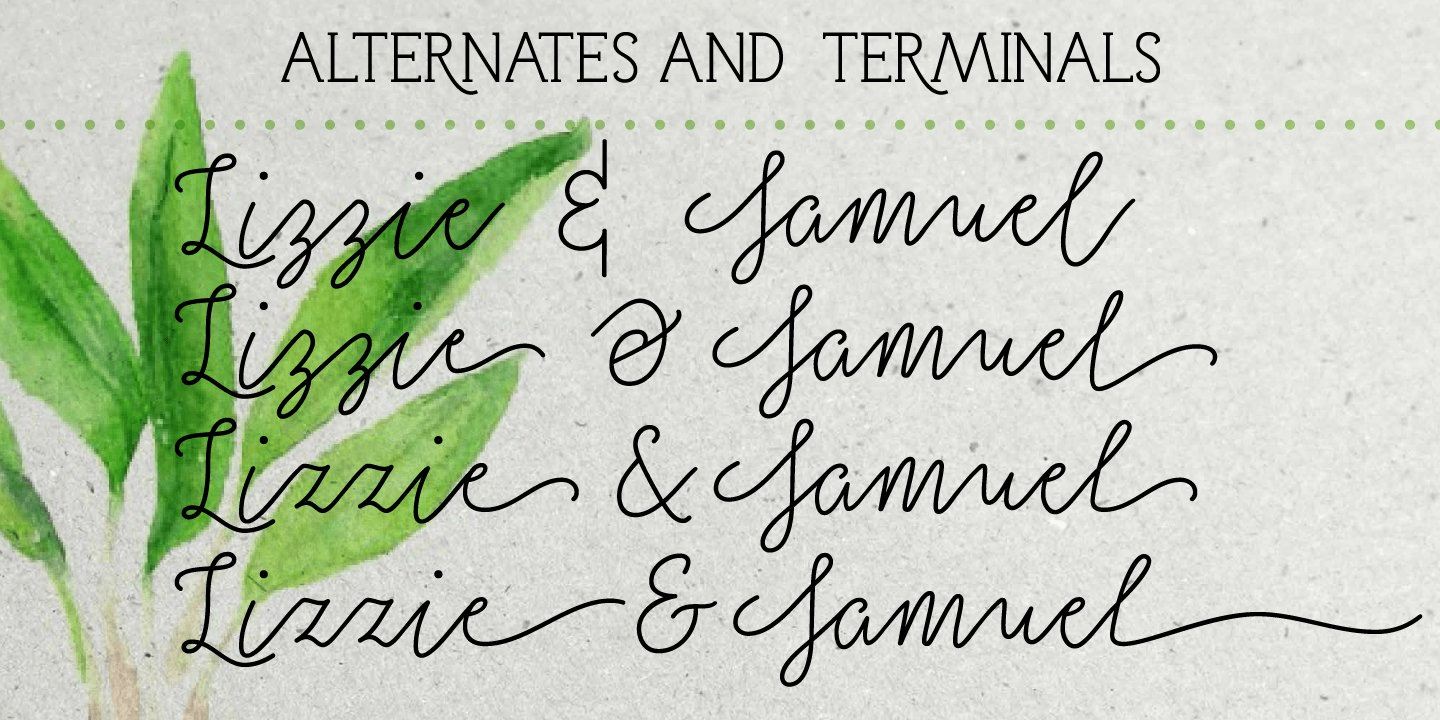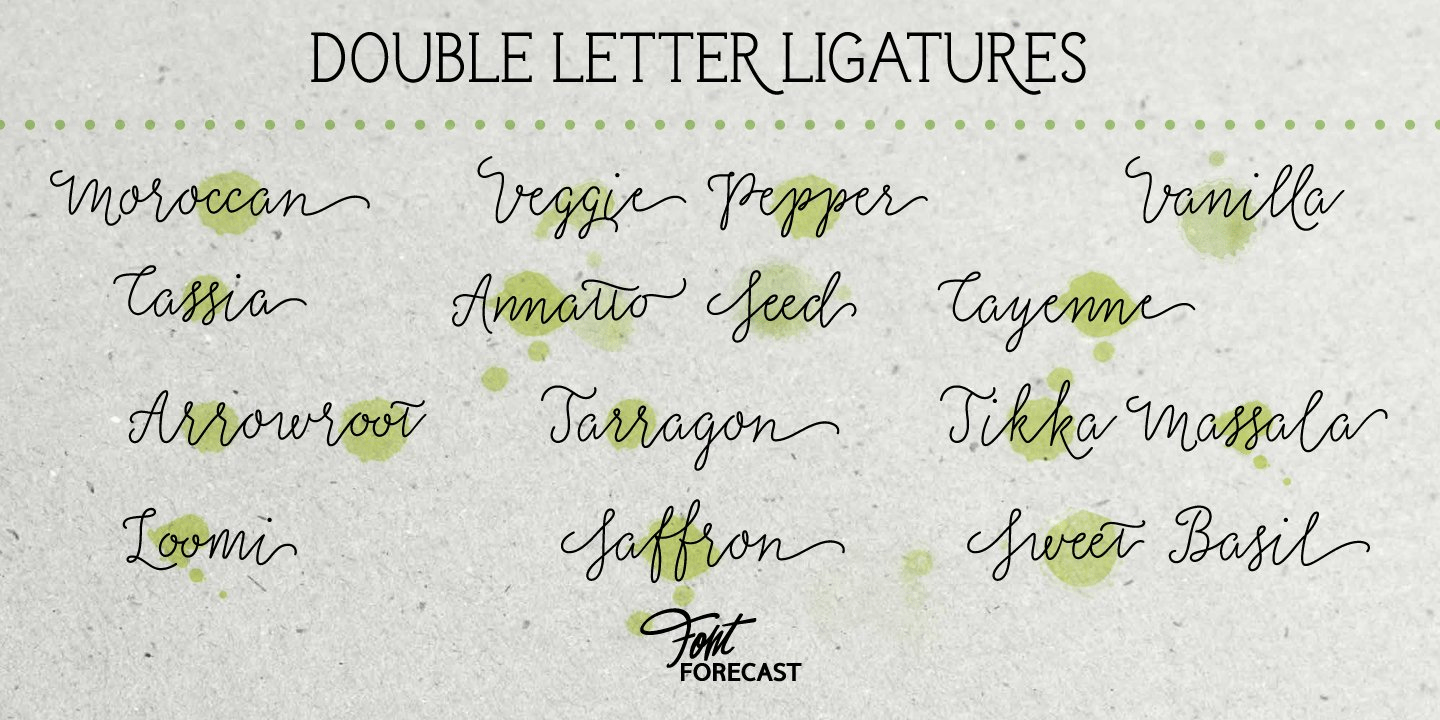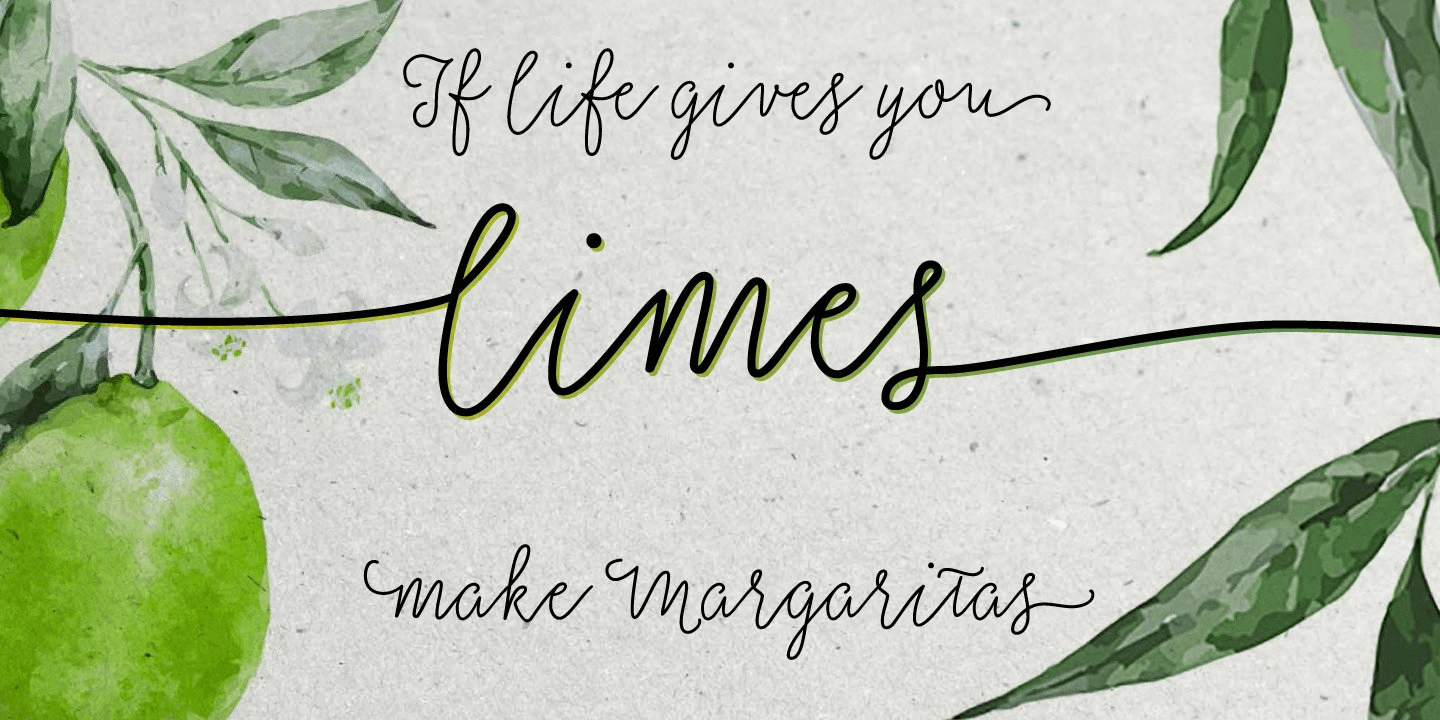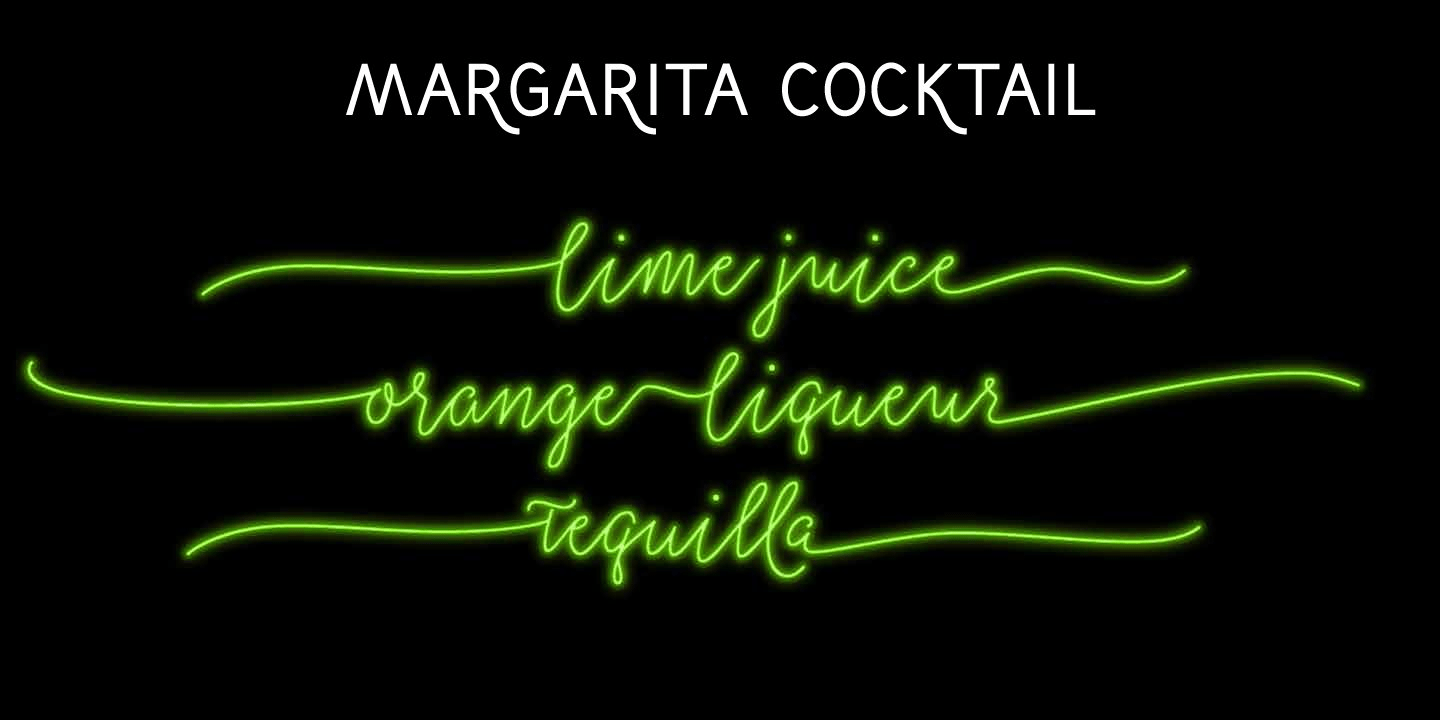
About Salt And Spices Mono
Salt & Spices Mono is the mono lined version of Salt & Spices Pro. Where Salt & Spices Pro has the rough contours and high contrast that is typical for dip pen calligraphy, Salt & Spices Mono has clean crisp smooth letterforms that result in a totally…